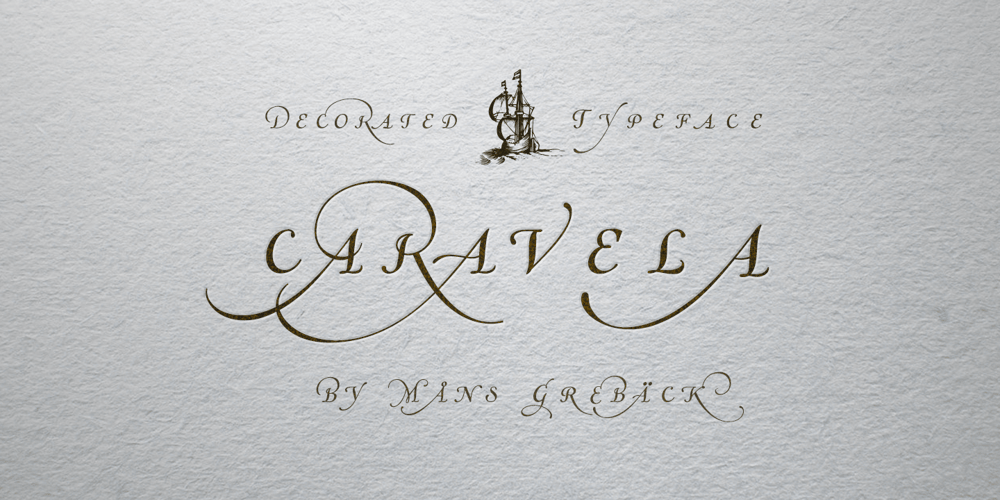
Caravela
Caravela font
Caravela Font Family was designed by Måns Grebäck and published by Mans Greback. Caravela contains 2 styles and family package options. Caravela is a decorative formal typeface.It was designed, drawn and realized by Mans Greback in 2020.Inspired by 17th century typographic works, this work lifts some of the absolute best elements from the golden age of calligraphic lettering, bringing it to life in a new, modern setting. The fusion results in a typeface that works perfectly for a present day headline, logotype or invitation, while keeping the traditions and formality inherited from history. It contains several alternate alphabets, a great set of ligatures and hundreds of contextual functions, which combined make the writing appear as a true handpainted piece of art.Swashes can be accessed by writing swash1, swash2, swash3 etc.Also included is the Caravela Swash style, a font that contains more than 50 decorative elements to be used with the lettering for an even greater visual effect. It has a very extensive lingual support, covering all European Latin scripts.The font contains all characters you’ll ever need, including all punctuation and numbers.